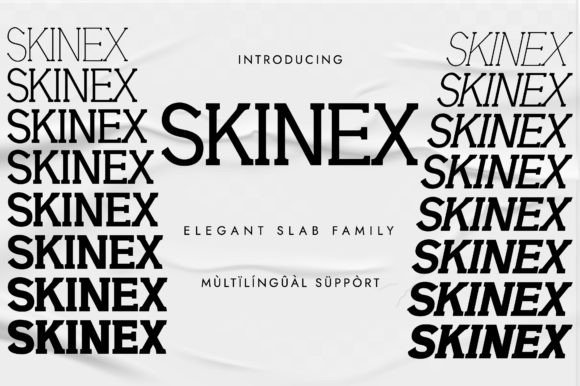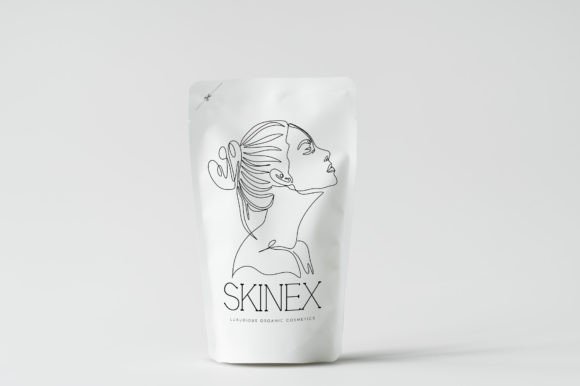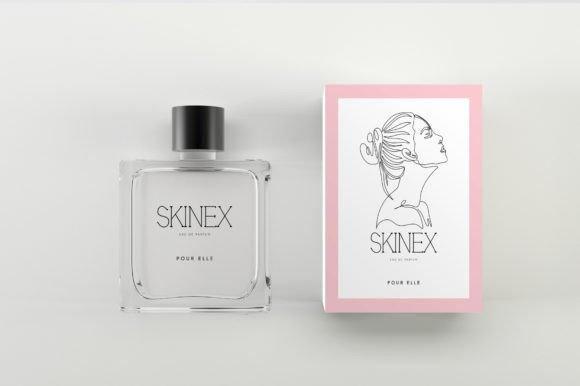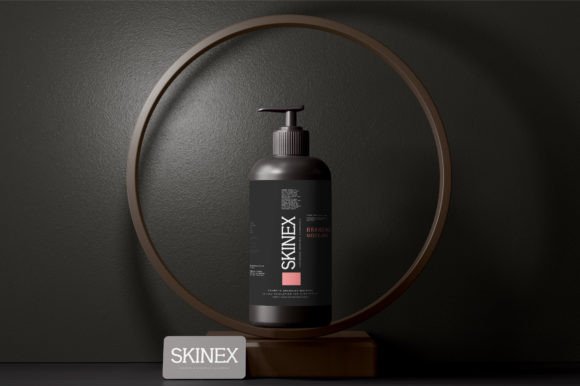
Skinex: An Elegant and Modern Slab Serif Font Family
Skinex is an elegant and modern slab serif font family. With its stylish and fresh look, this font is suitable for skin care products, packaging design, web design, perfume design, or anything that needs a clean, organized vibe.
Key Features of Skinex
- Elegant Design: Offers a sophisticated and refined look suitable for various applications.
- Modern Slab Serif: Features contemporary slab serifs that add character while maintaining a fresh appearance.
- Stylish Aesthetic: Brings a fashionable and current feel to designs.
- Versatile Application: Ideal for a range of design projects, especially in the beauty and lifestyle industries.
Ideal Uses for Skinex
Skinex’s unique characteristics make it particularly well-suited for:
- Sophisticated skin care product branding
- Stylish packaging design
- Clean and modern web design
- Elegant perfume branding
- Fresh lifestyle product labeling
- Contemporary beauty industry advertising
- Organized and clean editorial layouts
When incorporating Skinex into your designs, consider these tips:
- Use for headlines or short blocks of text to showcase its elegant and modern style.
- Experiment with different weights within the font family to create hierarchy and contrast.
- Consider pairing with sans-serif fonts for body text to maintain a clean, organized look.
- Utilize its fresh appearance to create designs that evoke a sense of cleanliness and sophistication.
In conclusion, Skinex is an excellent choice for designers looking to add an elegant and modern slab serif font family to their toolkit. Its stylish and fresh look makes it stand out in the world of typography, especially for projects related to beauty, lifestyle, and wellness. Whether you’re working on skin care product branding, creating packaging designs, or developing web content, Skinex offers the perfect blend of sophistication and contemporary appeal.
Furthermore, Skinex’s unique design allows it to shine in various contexts where a clean and organized vibe is desired. From perfume branding to lifestyle product labeling, this font can elevate your projects with its distinctive style. Its elegant yet modern appearance works particularly well in designs that aim to convey a sense of freshness and refinement while maintaining excellent readability.
To sum up, Skinex is a font that truly captures the essence of modern elegance in slab serif typography. Its versatility across different applications showcases its adaptability to various creative needs in the beauty and lifestyle sectors. For those looking to add a touch of sophisticated charm to their work, Skinex can enhance themed creations with its stylish and fresh aesthetic. It’s the ideal choice for designers seeking to make a refined, contemporary impact across a wide range of creative projects.